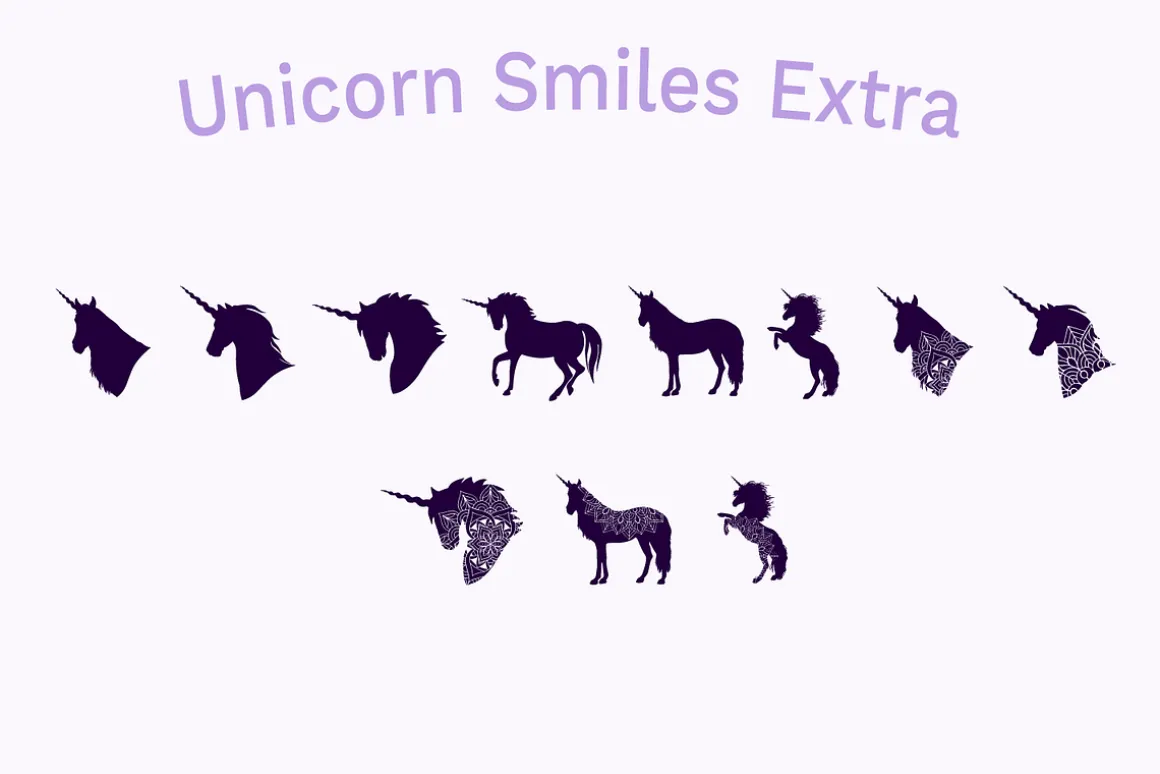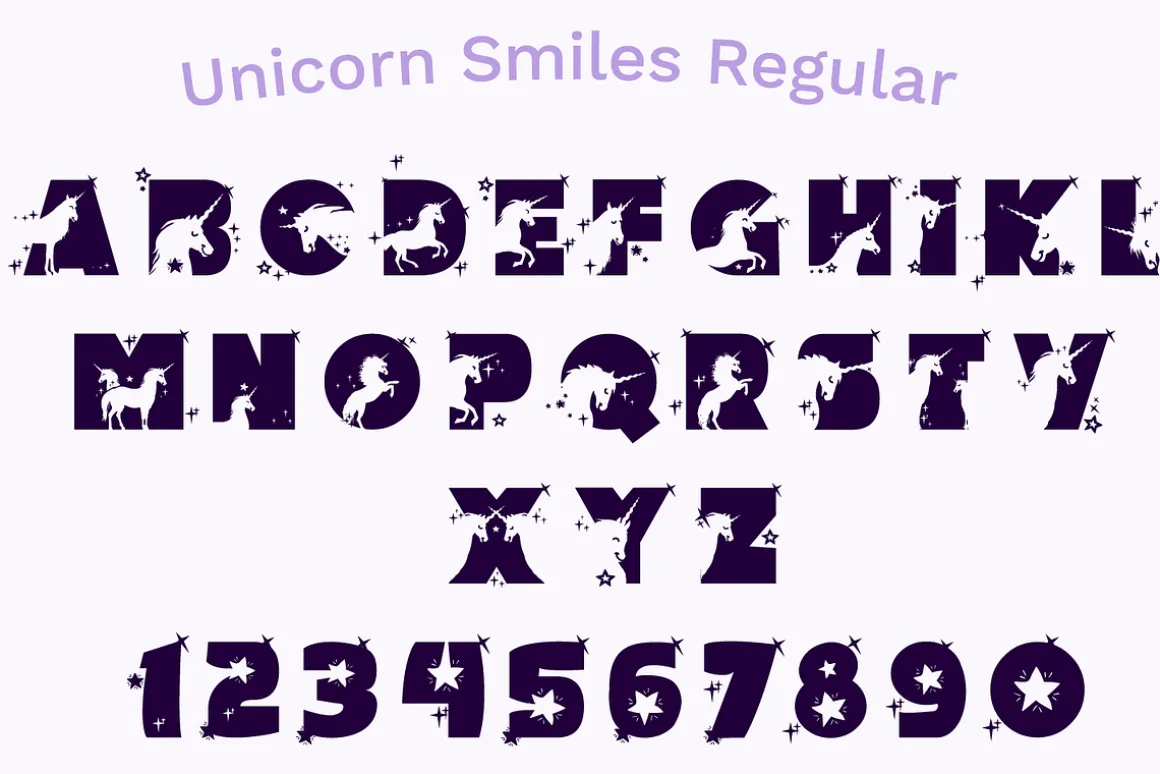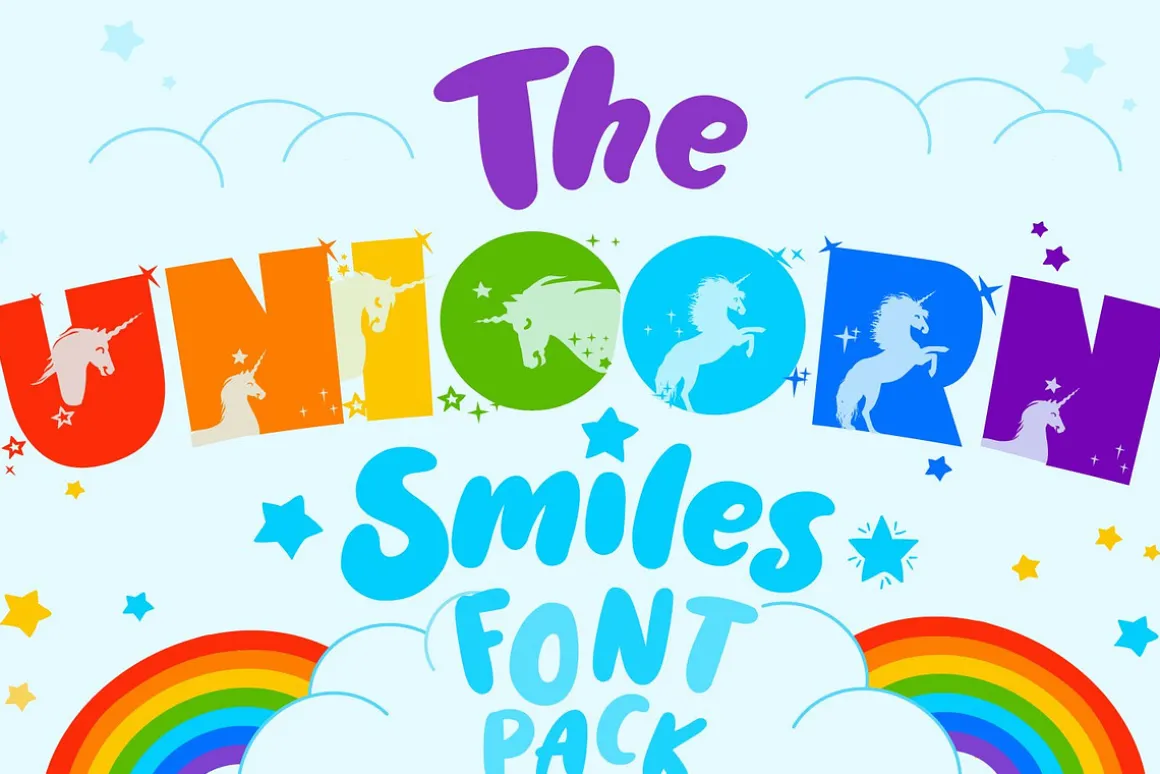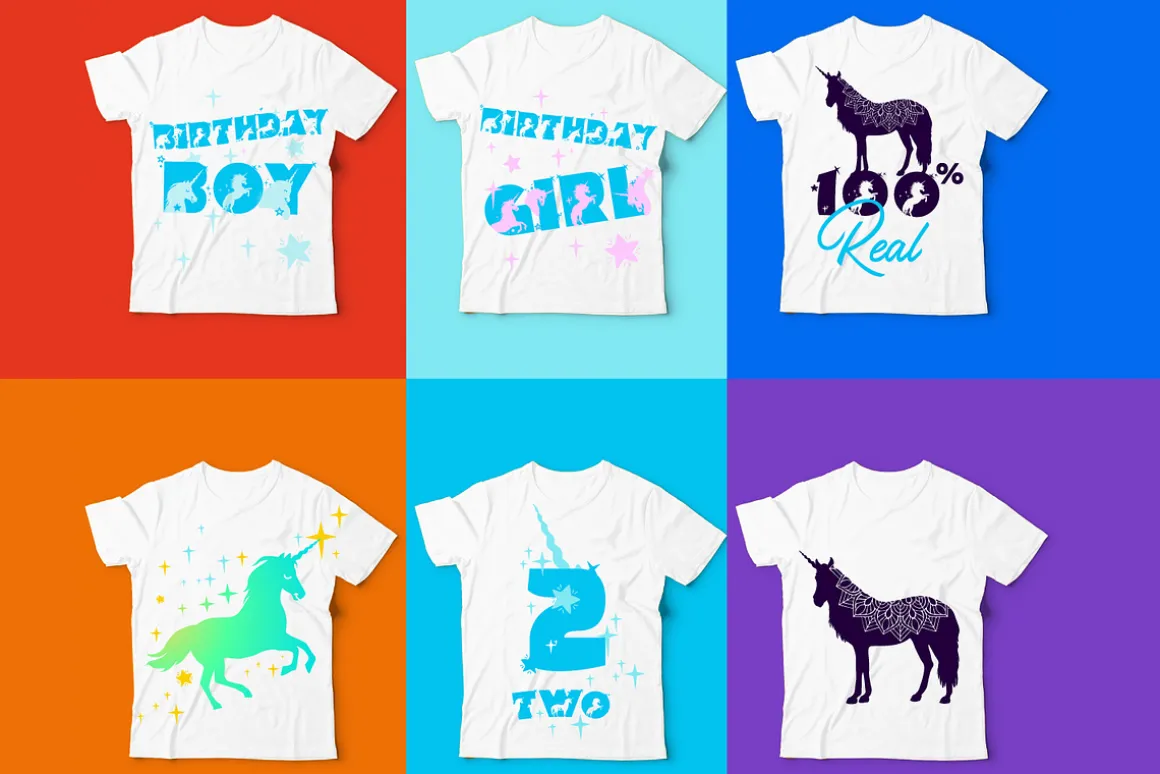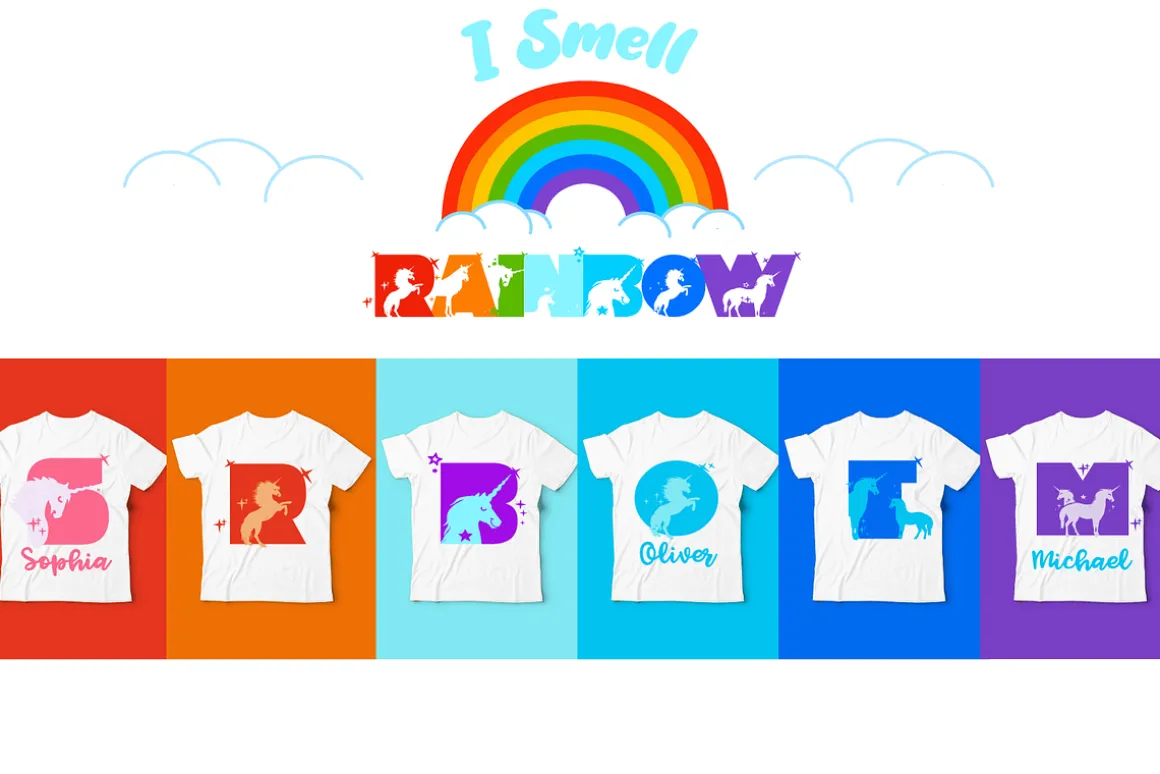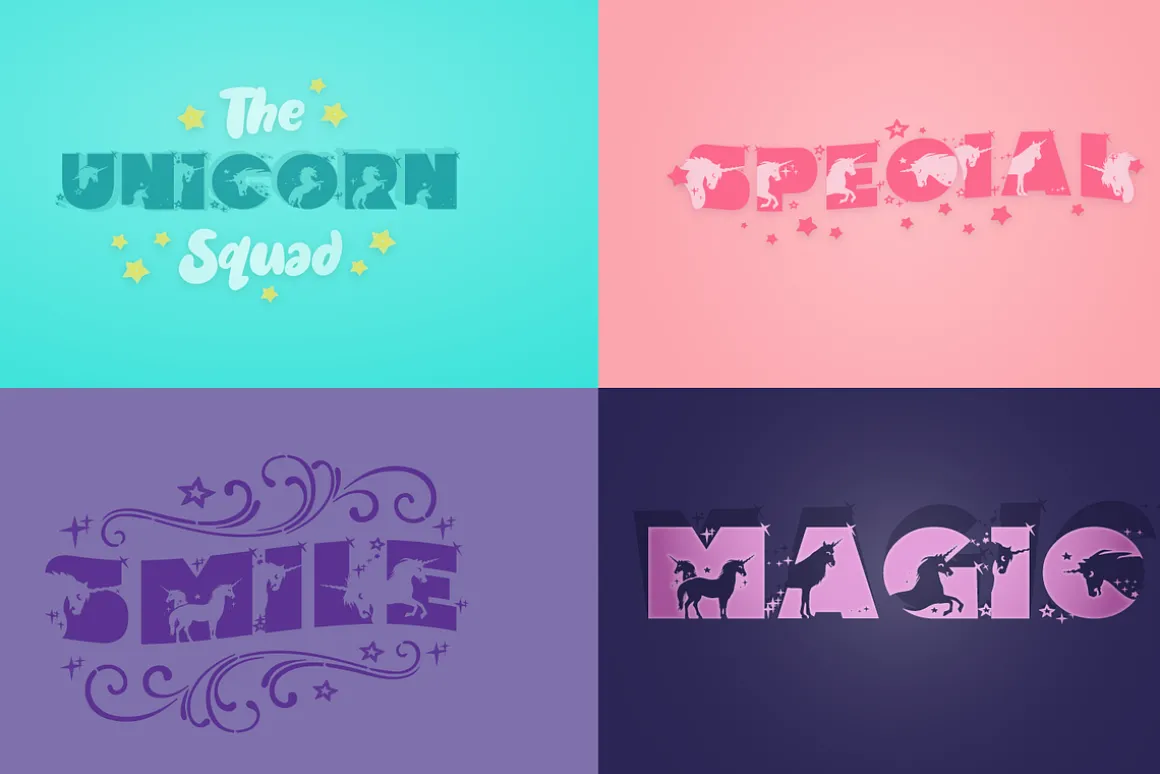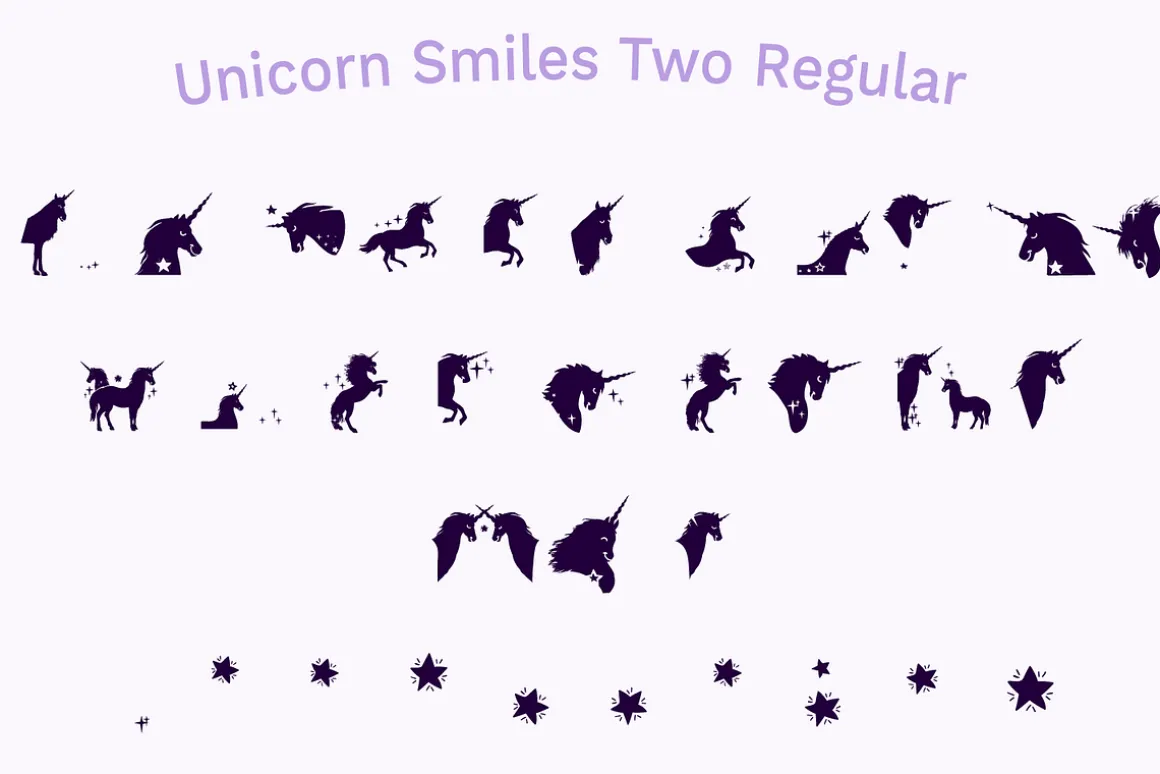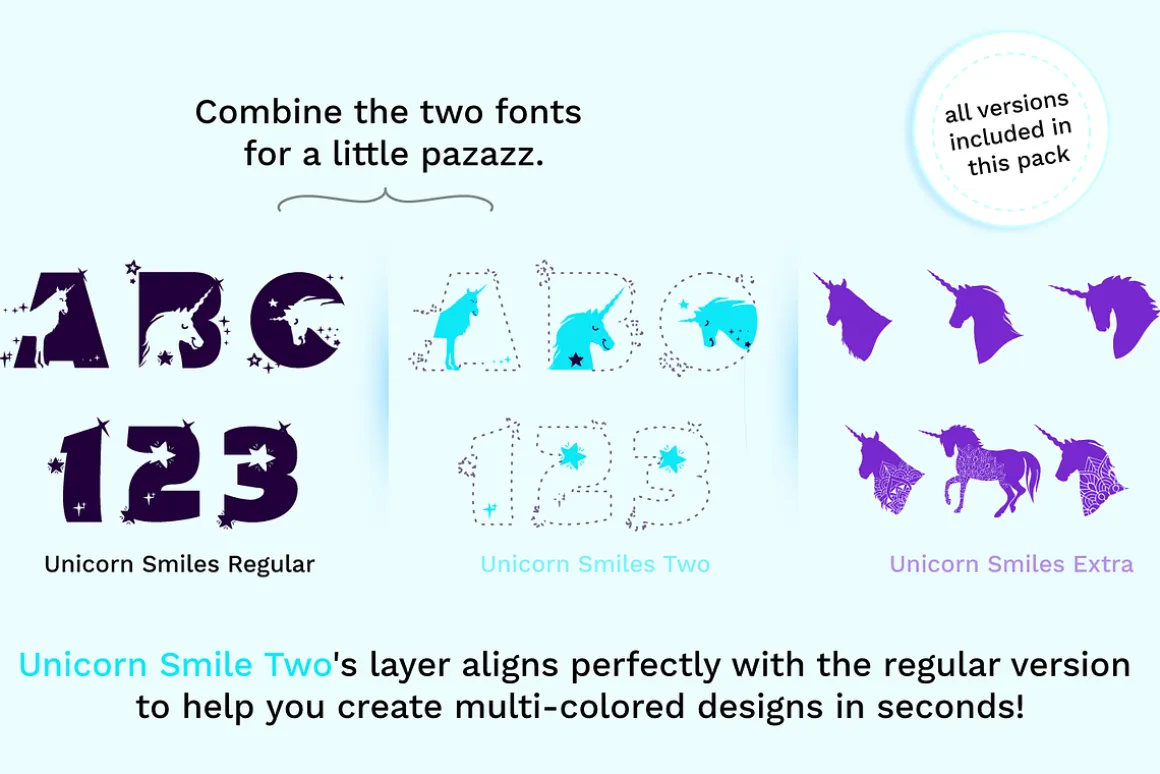
The Unicorn Smiles Font pack is a lovely layered font that can be used as a regular font or as a monogram.
This font is intended to be a playful font for kids (and grown-ups too), parties, packaging designs, papercuts or pretty much anything you can think of!
Unicorn Smiles Regular is a simple sans serif font with unicorn cutouts and stars.
Unicorn Layer Two font was created to give your projects a little pazazz. It has the cutout unicorns from the regular version to help you create multi-colored designs in seconds! The font aligns perfectly with the regular version, so you won’t need to type each letter individually in order to create a design.
Unicorn Smiles Extras is a small, but a helpful bonus with unicorn silhouettes and unicorn mandalas. These two fonts, plus the bonus extras will give you the ability to create entire projects from scratch!
It is a handcrafted font created from scratch, using as little points as possible to ensure you get the best results with minimum difficulty.
- All the fonts include uppercase A-Z letters, numbers and limited punctuation.